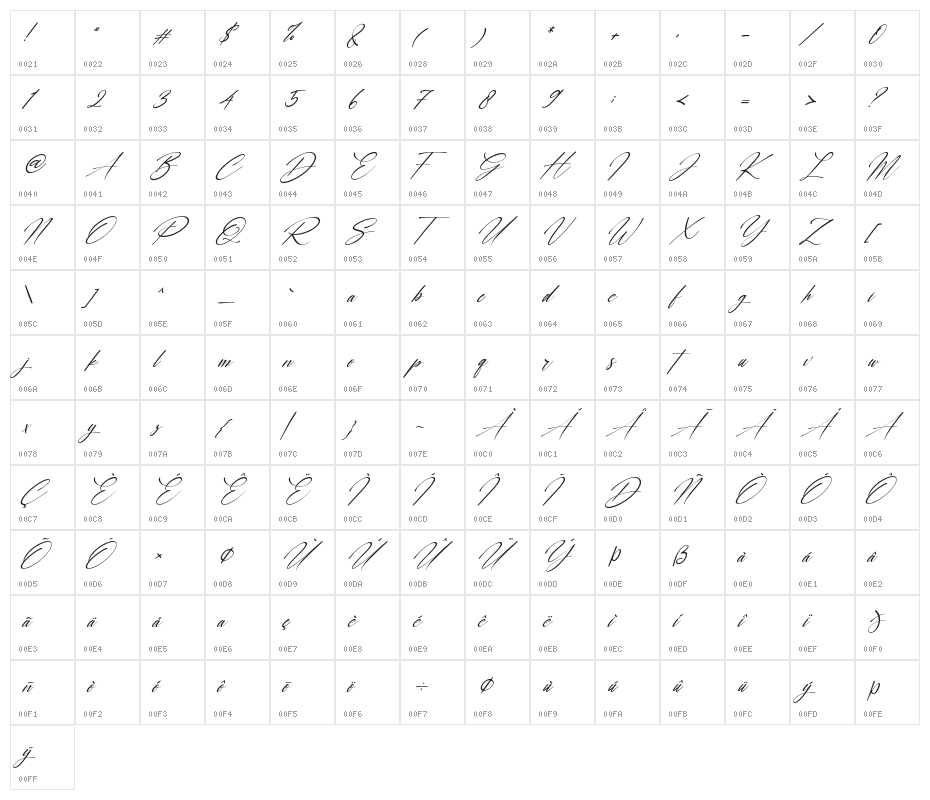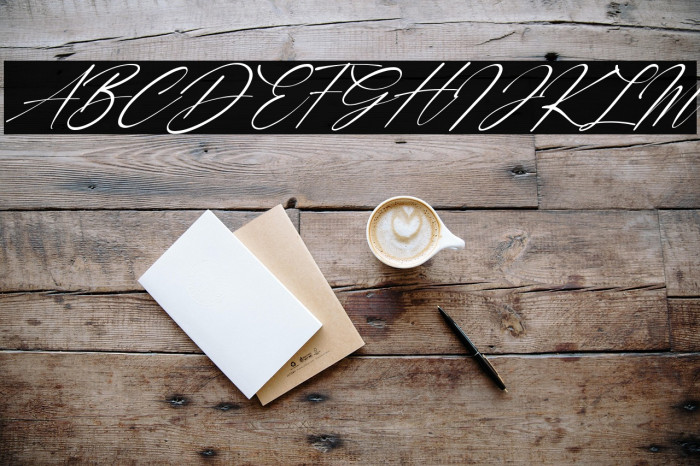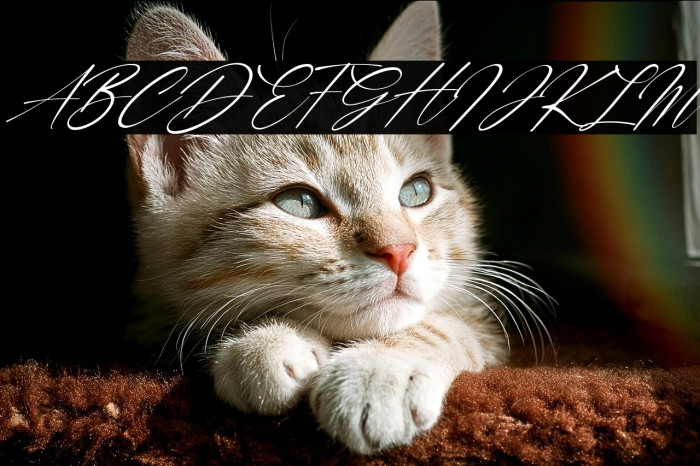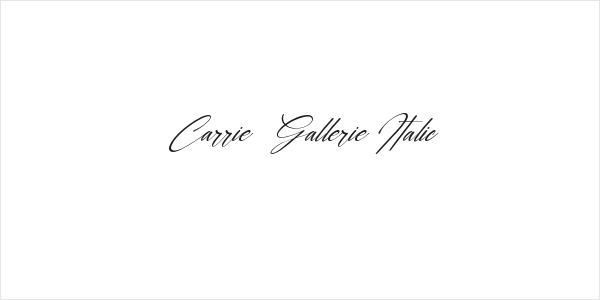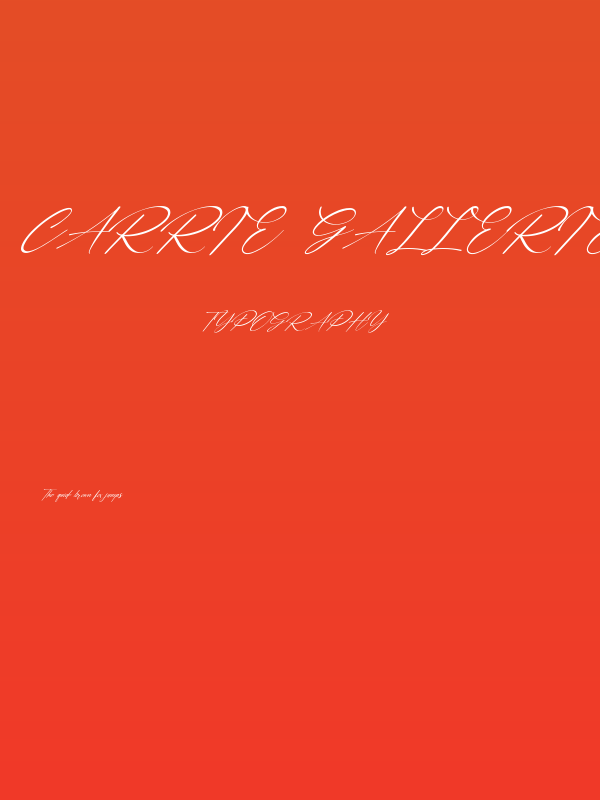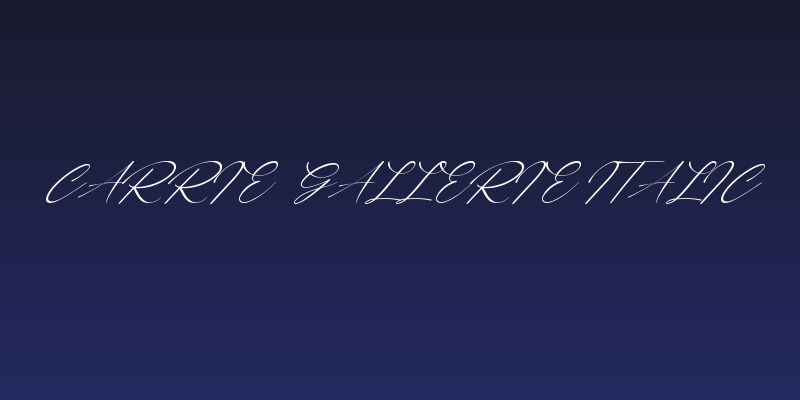
Carrie Gallerie Italic Font
Carrie Gallerie Italic Description
This elegant script font features a flowing, cursive style with a distinct italic slant, giving it a sophisticated and graceful appearance. The characters are interconnected, creating a seamless and fluid look that is both artistic and refined. The uppercase letters are tall and slender, while the lowercase letters maintain a consistent, smooth flow. The numerals and special characters are designed to complement the overall aesthetic, maintaining the same elegant curves and slanted style. This font is ideal for projects that require a touch of elegance and sophistication, such as wedding invitations, formal event programs, or luxury branding.
| Overall Style | Elegant, Decorative |
| Use Case | Headlines, Invitations, Branding |
| Proposed Projects | Wedding invitations, formal event programs, luxury branding, elegant stationery. |